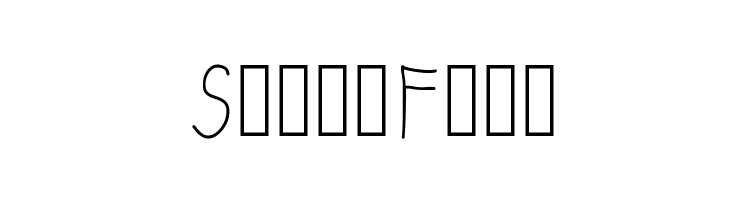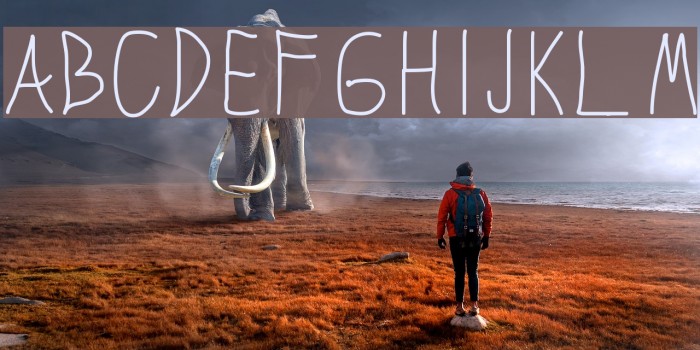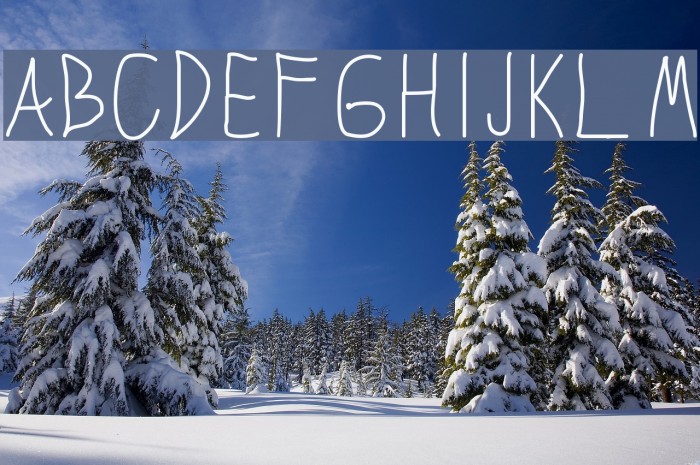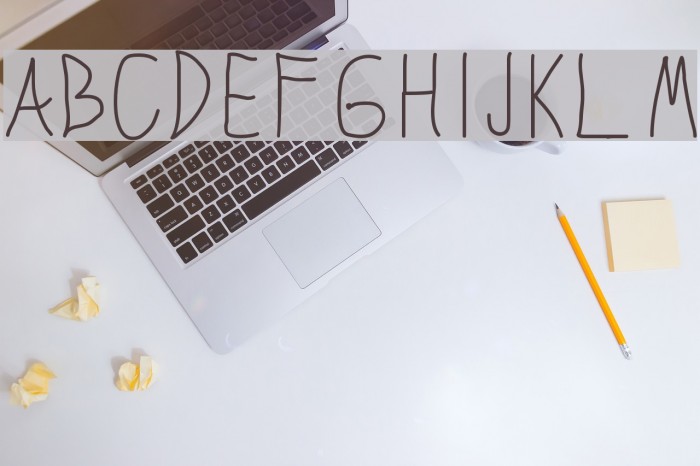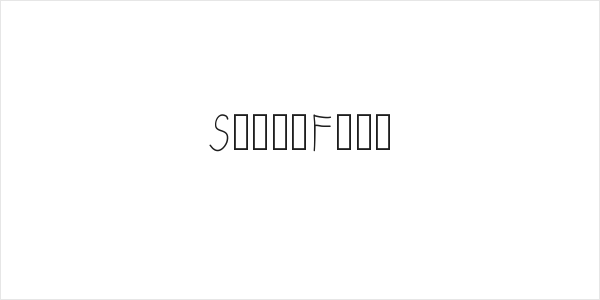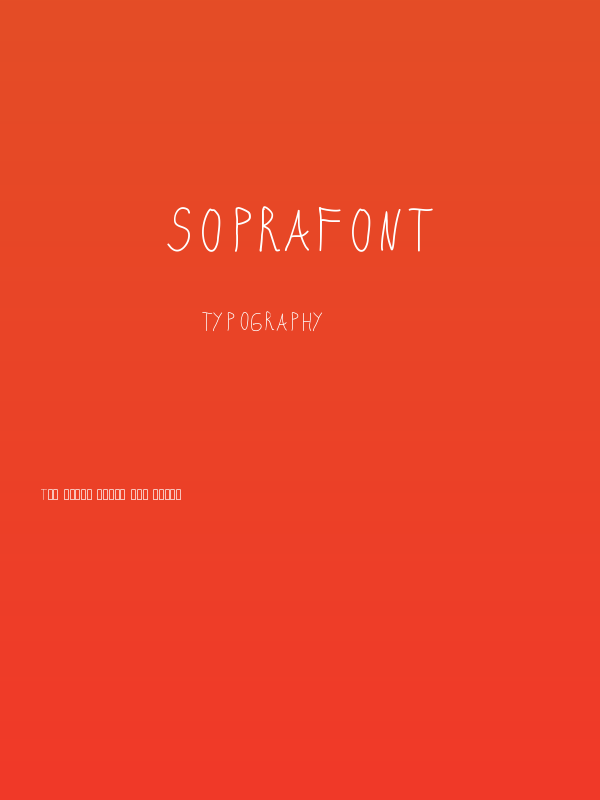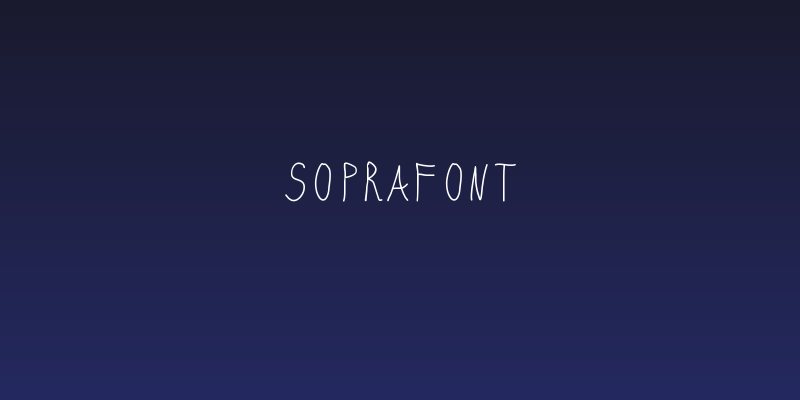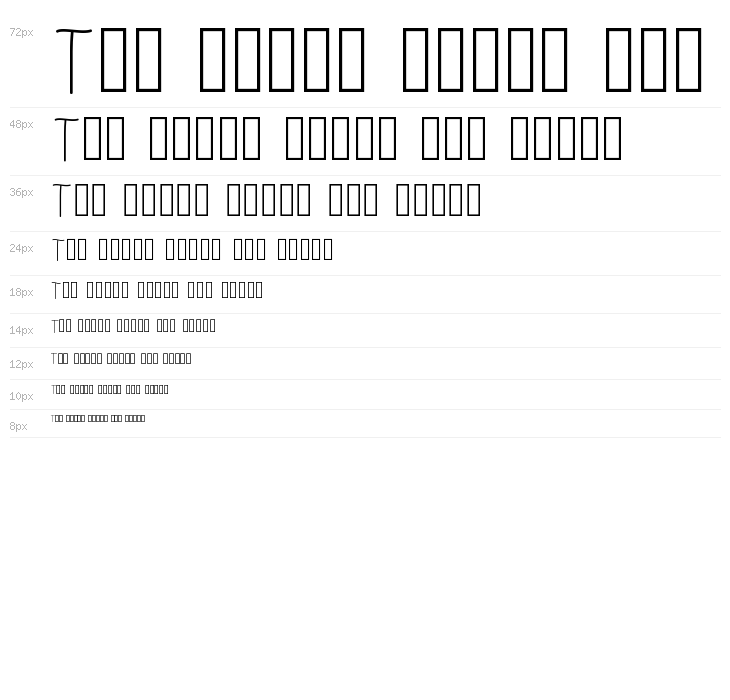
SopraFont Font
SopraFont Description
This font features a playful and casual handwritten style, characterized by its irregular and slightly tilted letterforms. The strokes are smooth and fluid, giving it a relaxed and informal appearance. The uppercase letters are tall and narrow, while the lowercase letters maintain a consistent flow, enhancing the font's legibility. The overall design exudes a sense of spontaneity and creativity, making it ideal for projects that require a personal touch. Its unique charm lies in the subtle variations in stroke thickness, adding a dynamic and lively feel to the text.